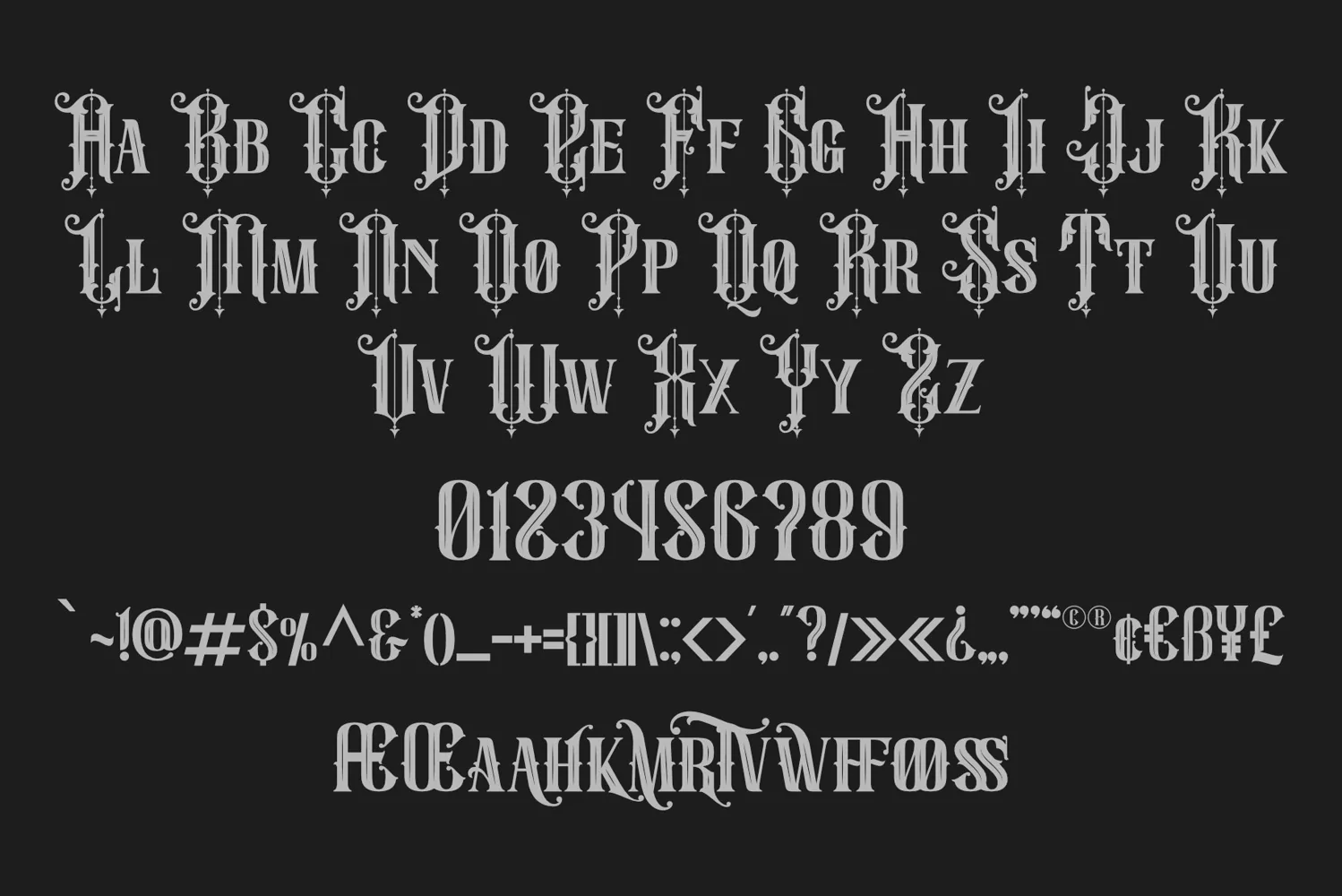
Schoutler
**Schoutler Font**
This pair was inspired by the retro motorbike poster design that i saw on some coffee shop, It was crafted by hand specially to add natural handmade feeling in its brand identity than i make it clean with pentool.
Schoutler font has 201 character set included
Schoutler Font is very good looking in logo, labels, t-shirt prints, product packaging, invitations, advertising and others.